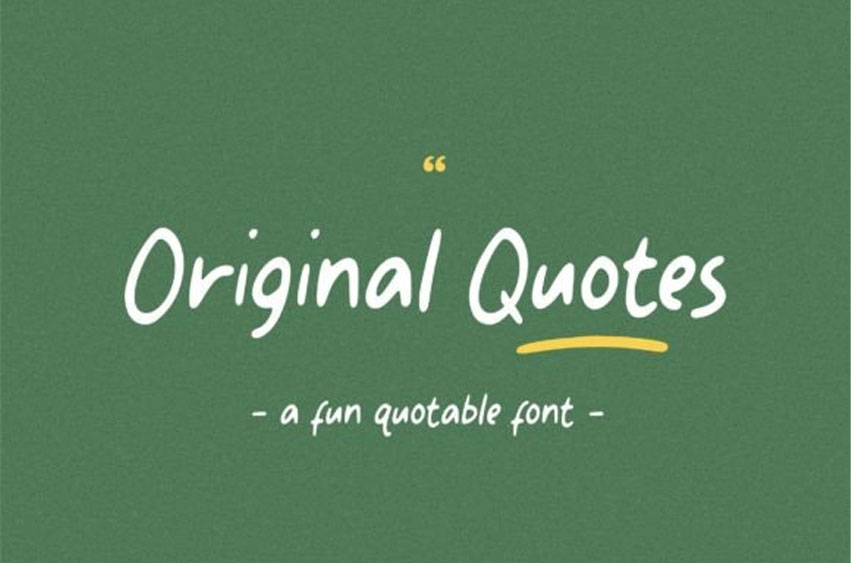
Original Quotes Font
Original Quotes Font is a fun and casual handwritten font.
Its playful and versatile style is perfect for a wide pool of creative ideas.